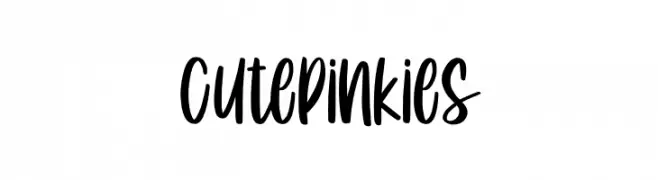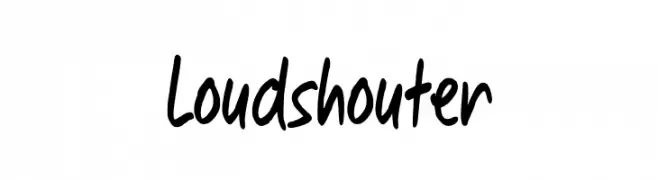
A playful, bold font with rounded edges and a bubbly appearance.
A bold, energetic handwritten font with dynamic strokes.
A lively and expressive handwritten font with fluid strokes and artistic flair.
A bold, brush-style font with an energetic and handcrafted appearance.
A playful, rounded font with bold, smooth curves and a friendly appearance.
A modern, rounded sans-serif font with a clean and approachable style.
( Fonts by Darrell Flood )
A playful, heart-accented font with bold, rounded characters.
( Fonts by Creaditive Design )
A playful, bubble-like font with rounded, bold characters.
A playful, handwritten font with bold, smooth strokes and a whimsical style.
A playful, handwritten font with bold, rounded characters.